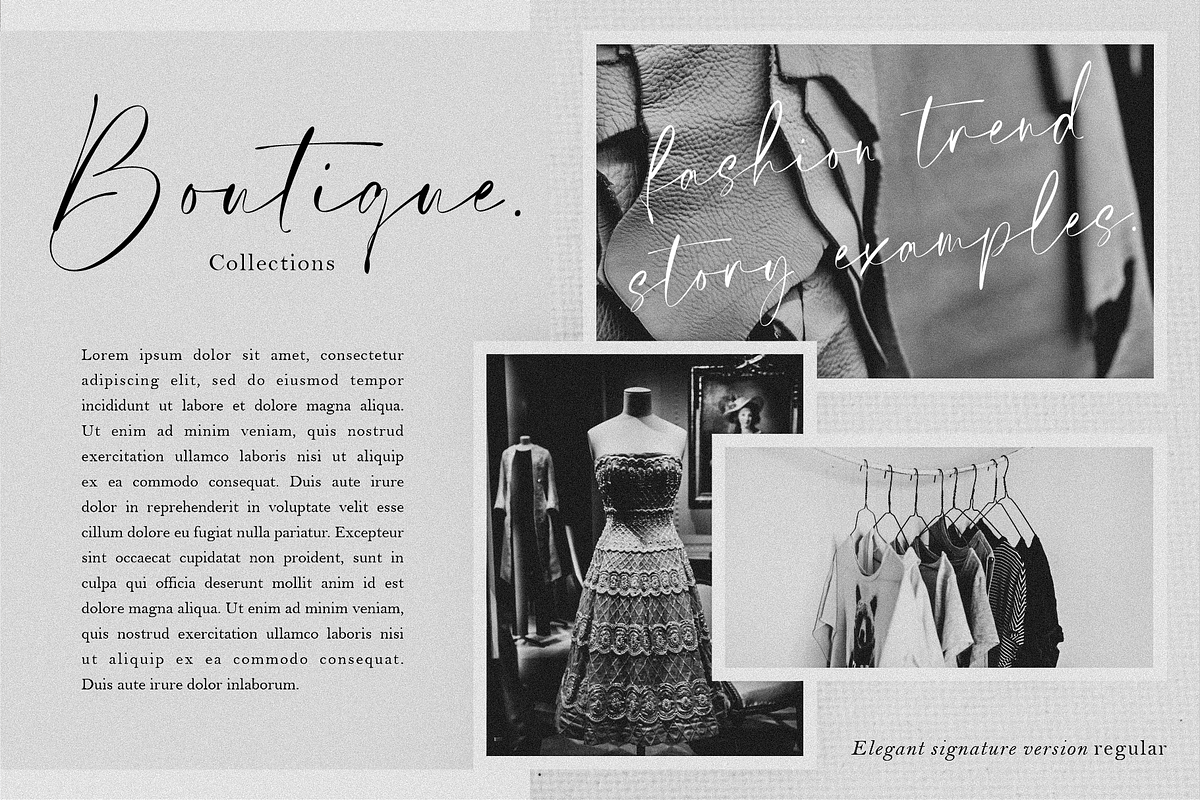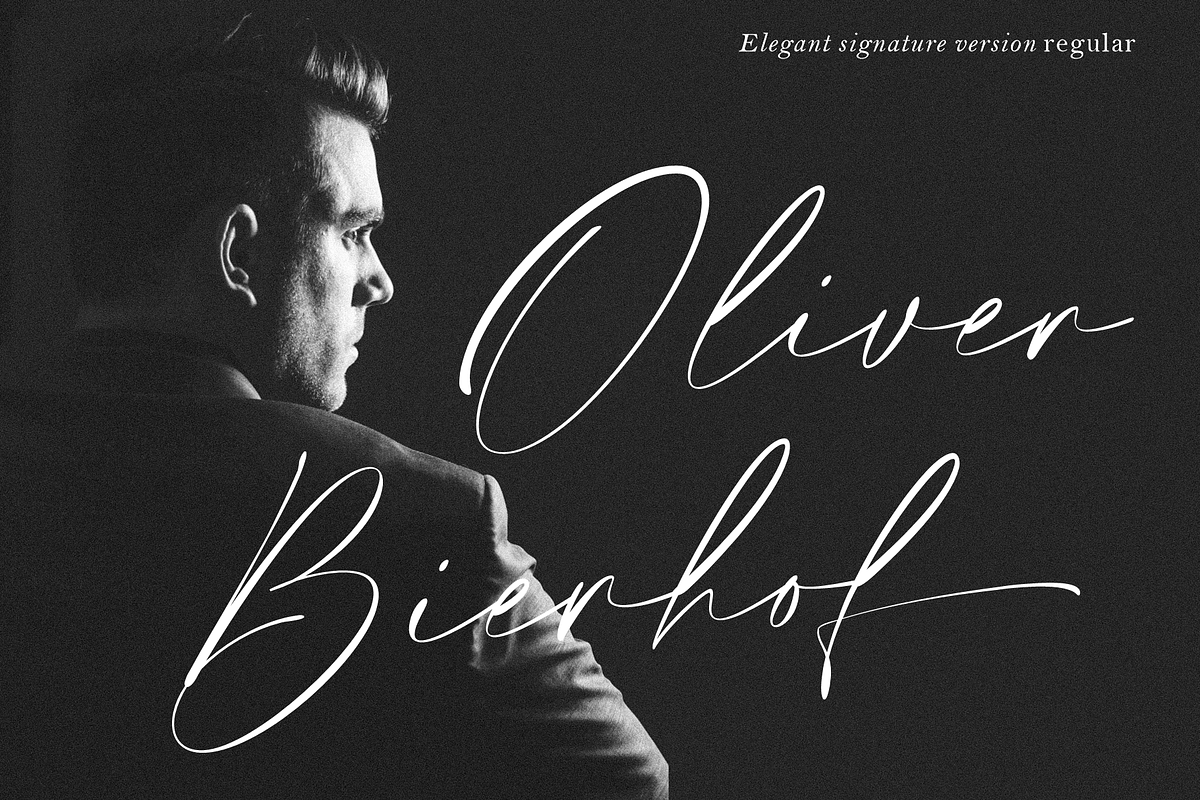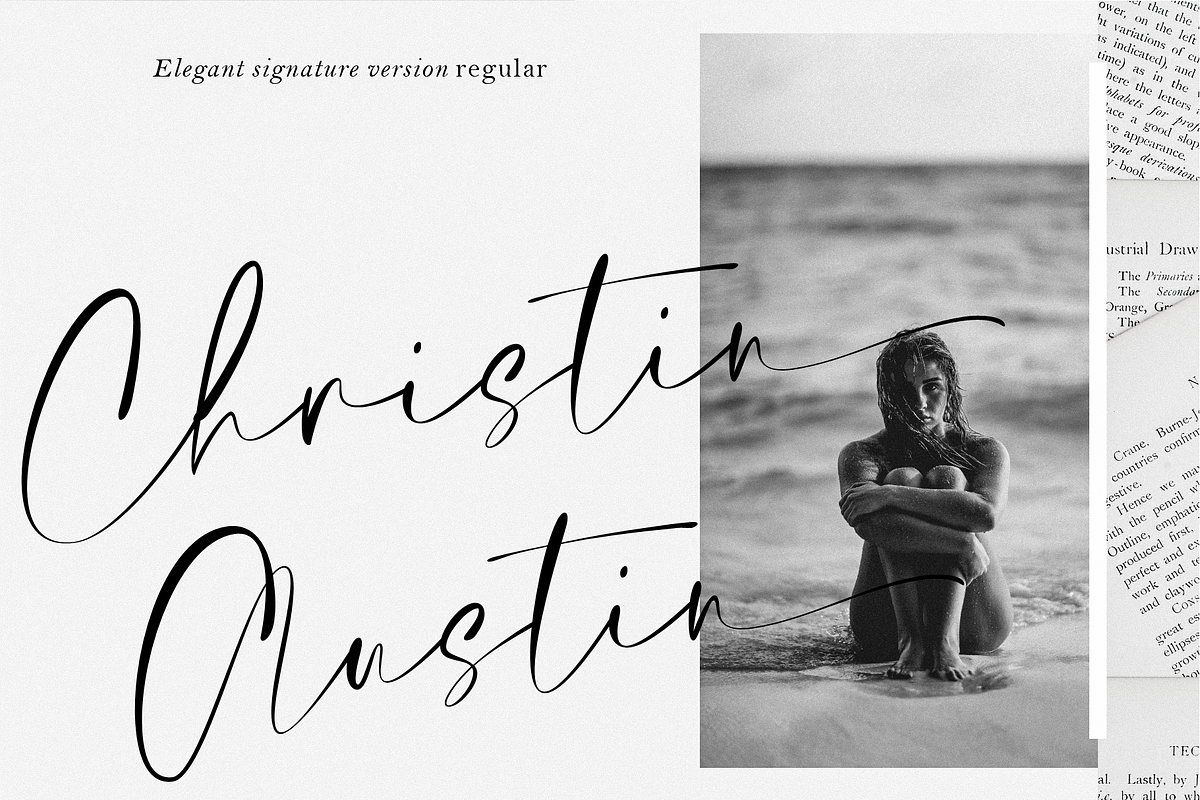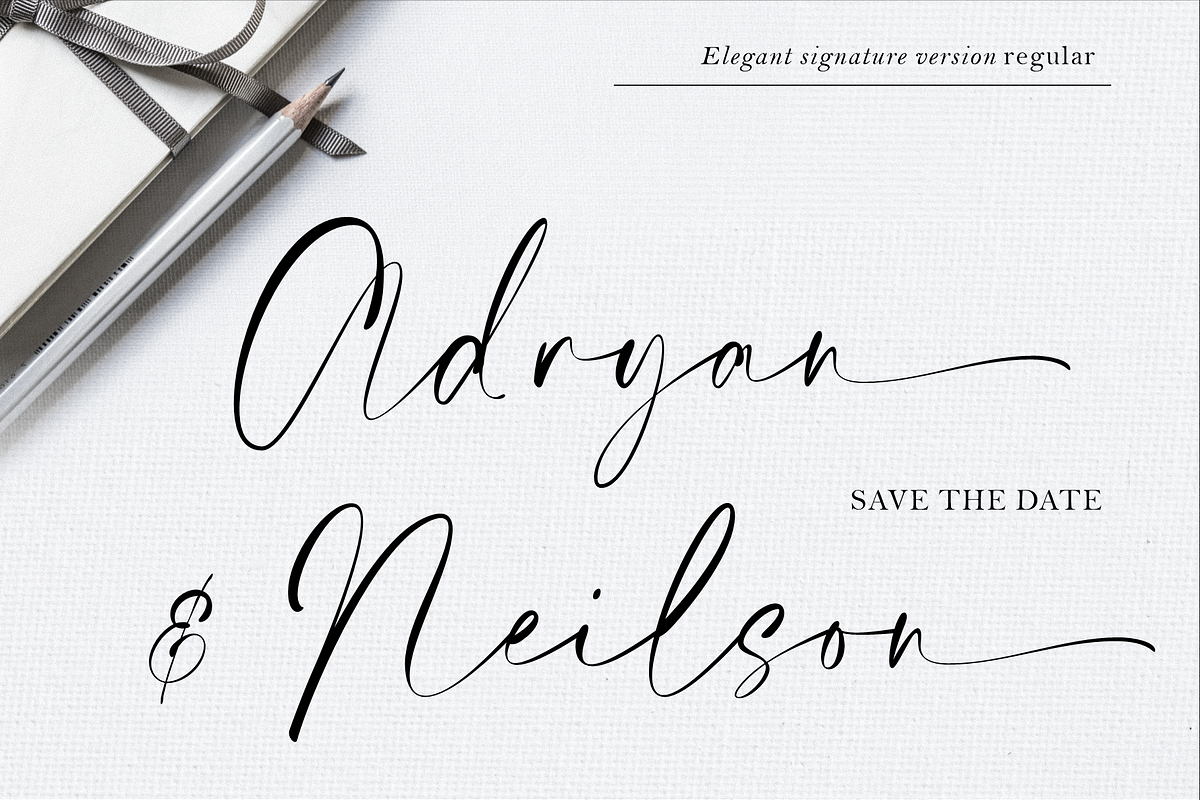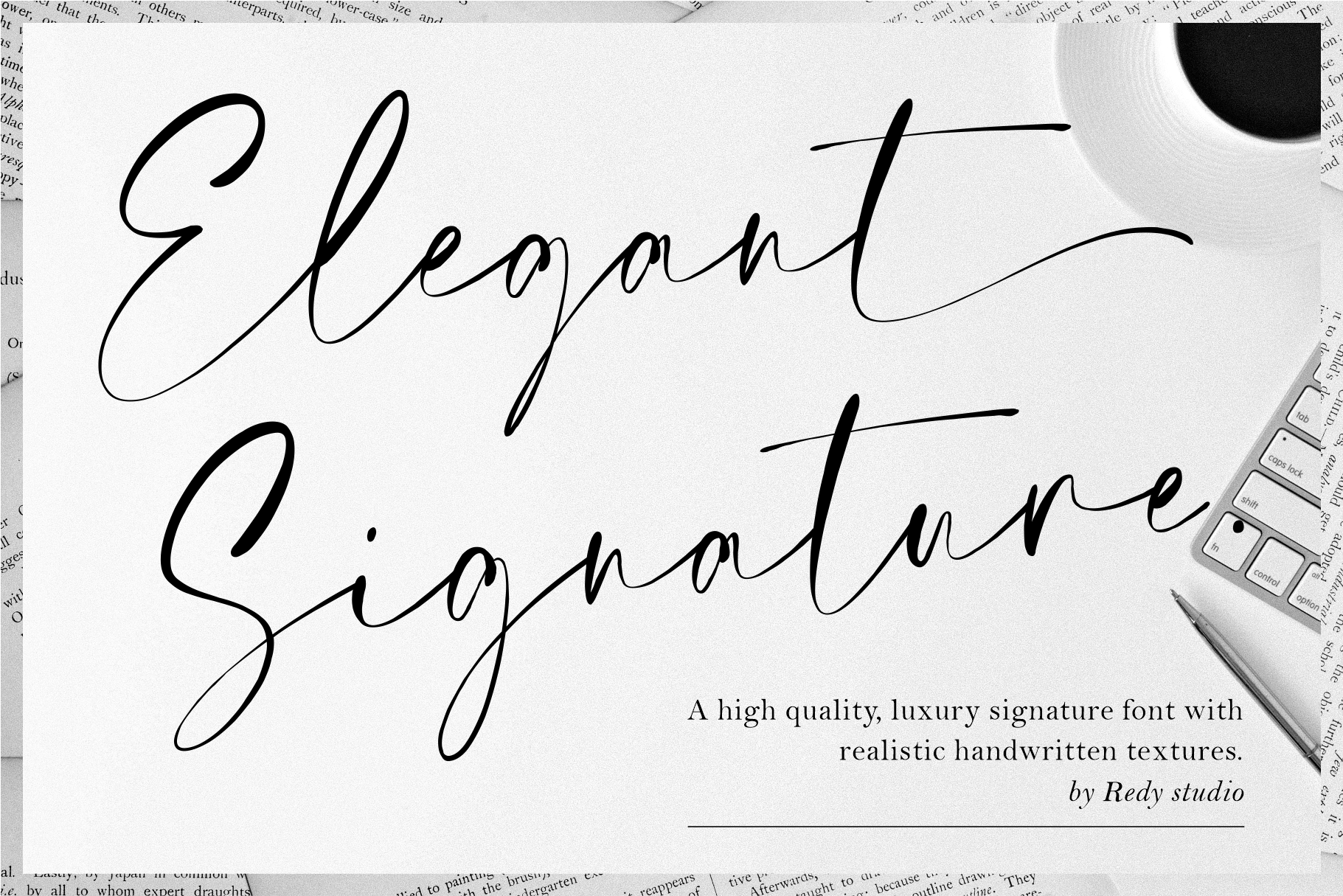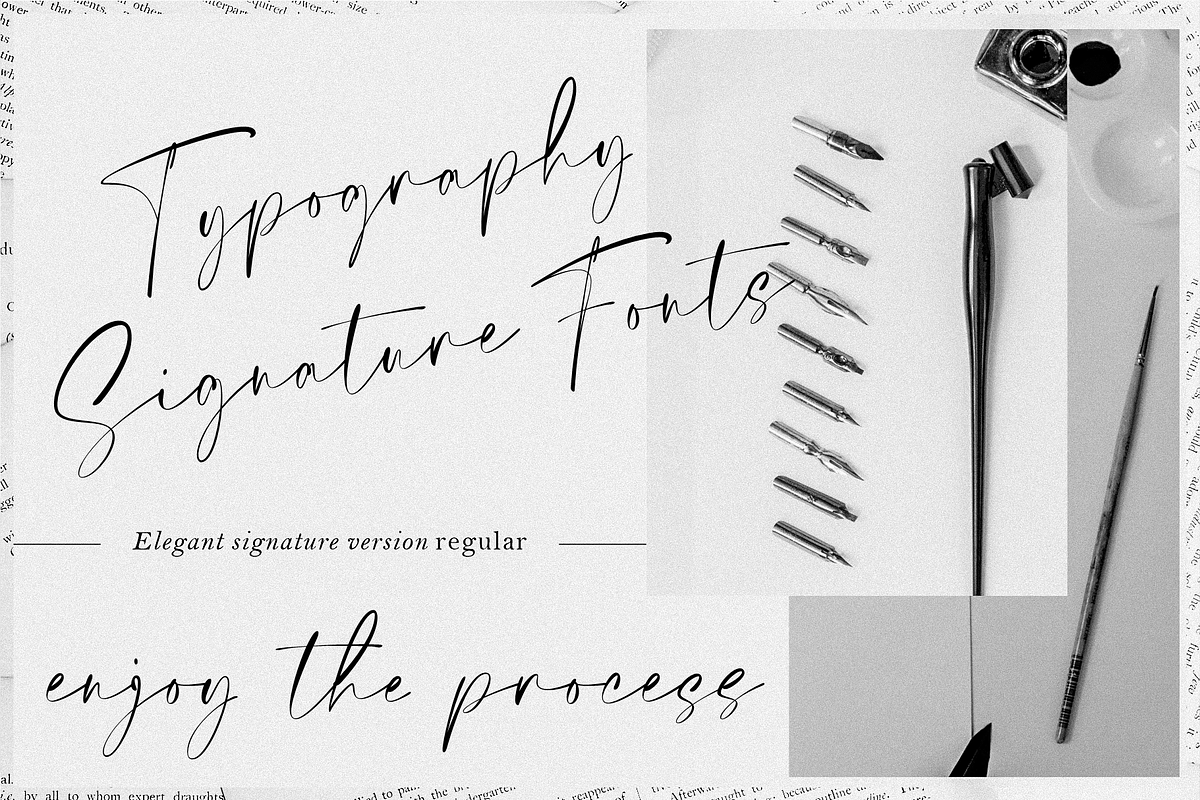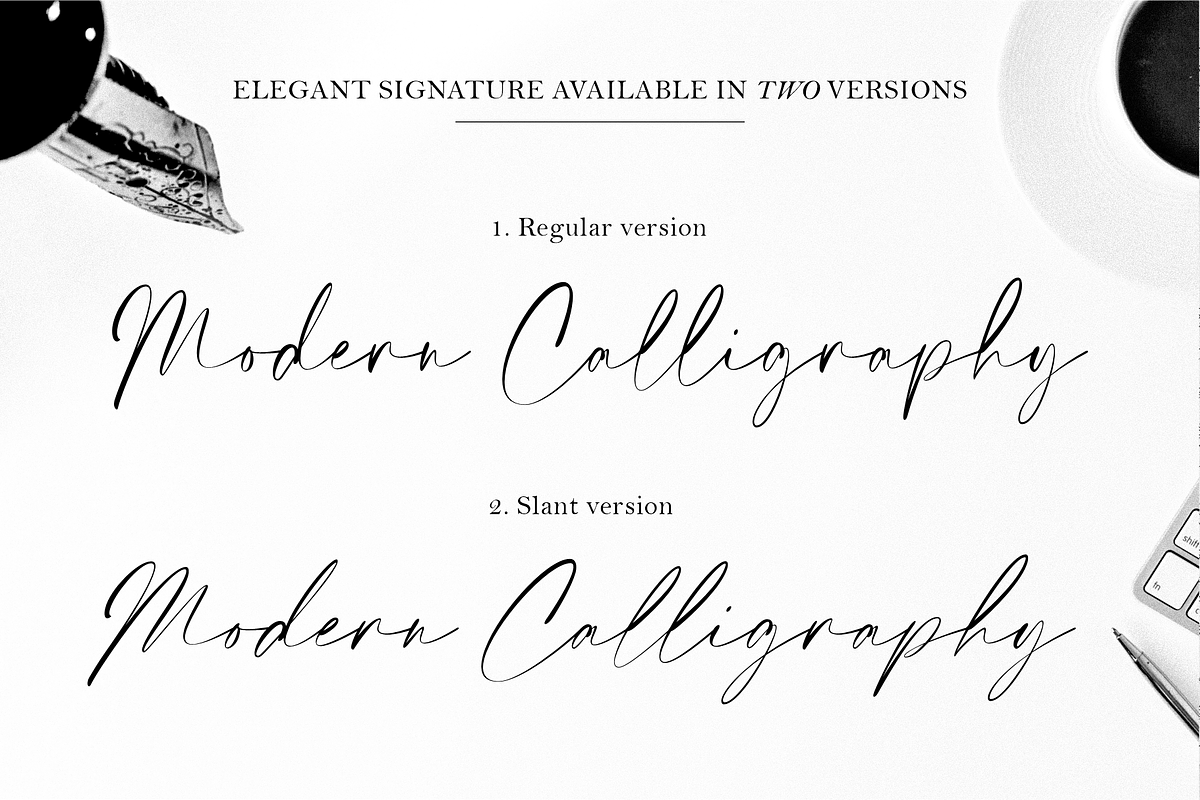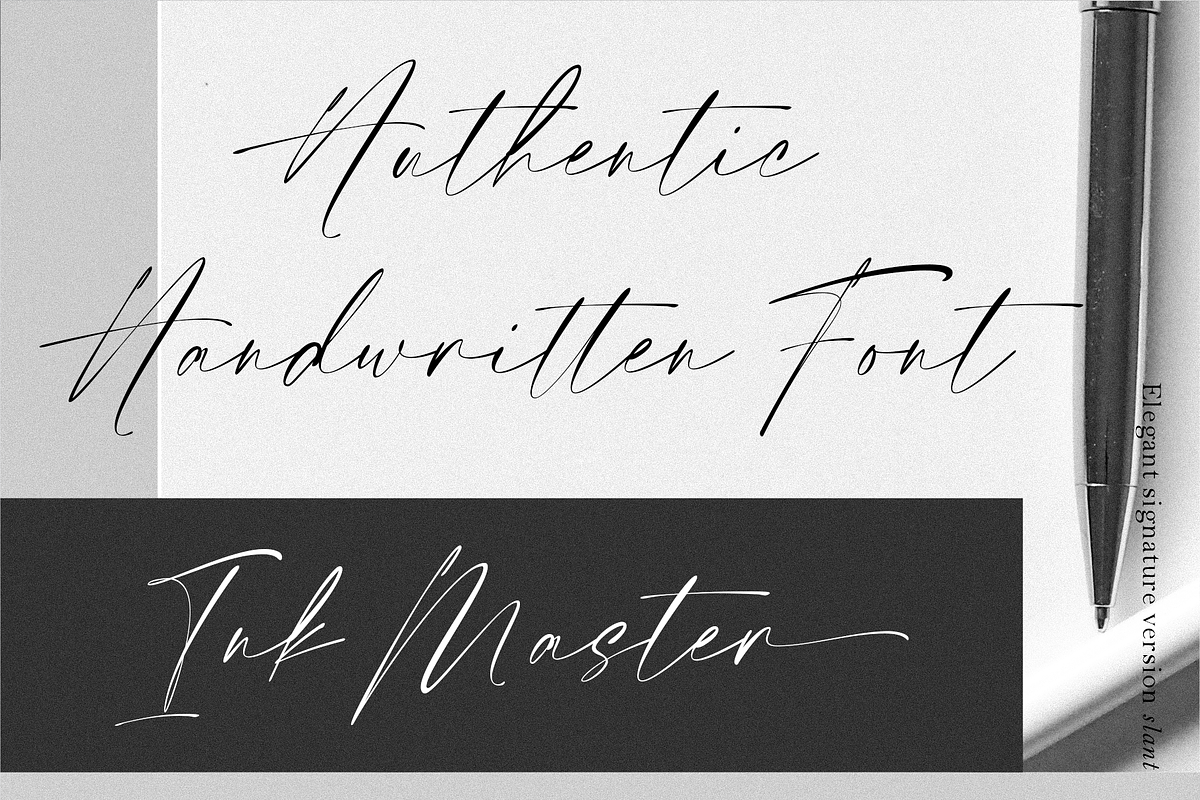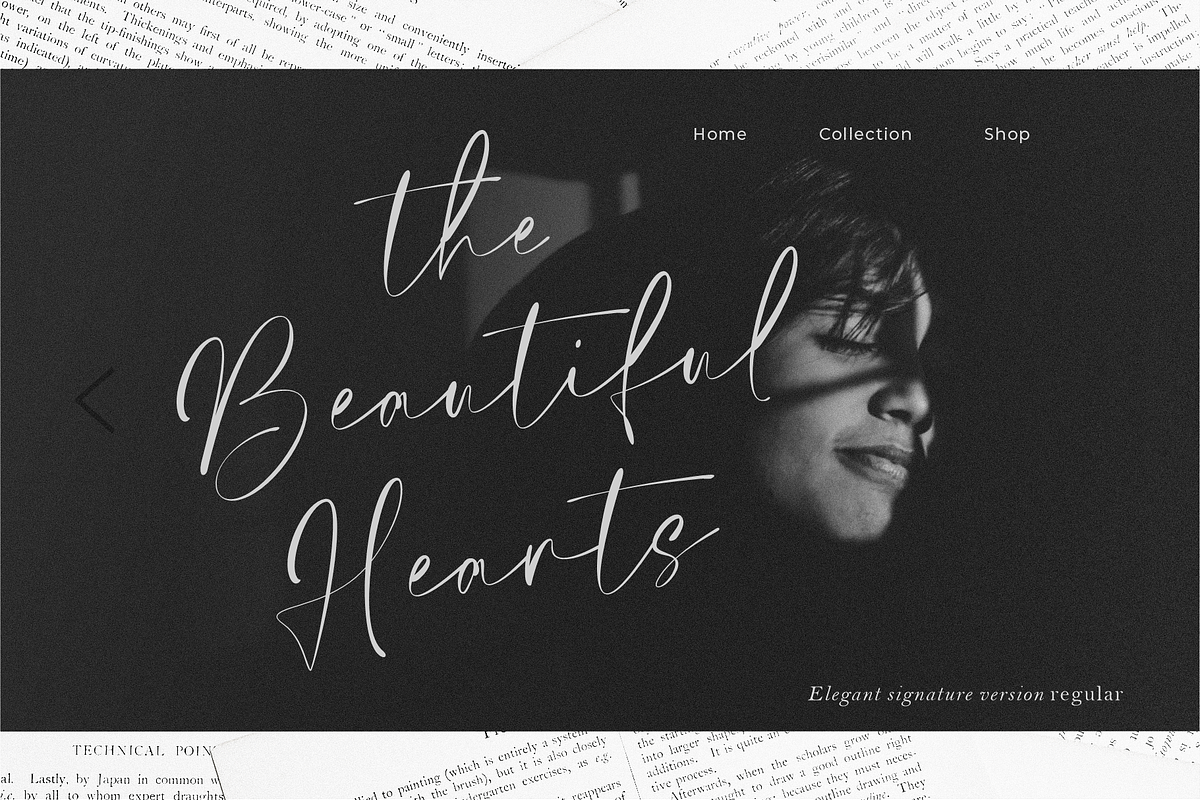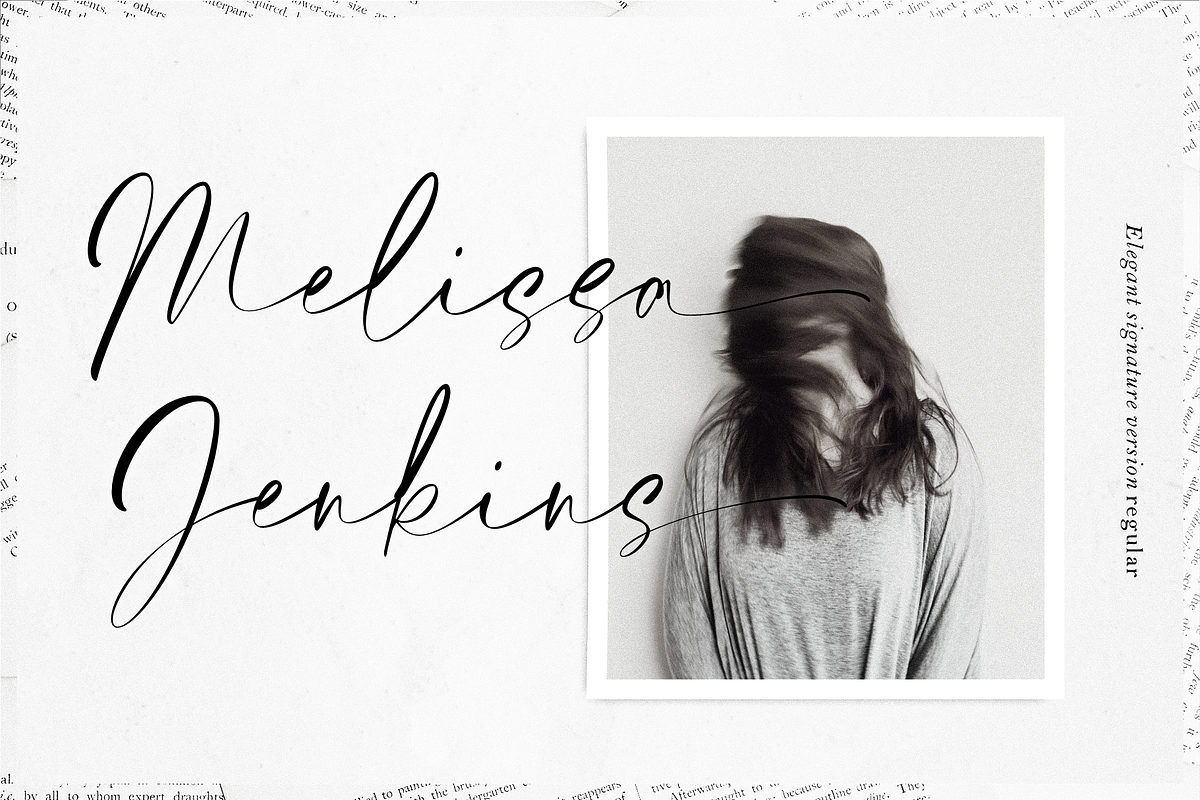
Elegant Signature – Casual Chic Font
Elegant Signature is a brand new font; very elegant, stylish, chic, and easy to read. It’s a beautiful handwriting style font with handmade clean edges, in very high quality that will certainly bring that special uniqueness needed in your designs. Create more eye-catching designs of your logo and add more art to your paperwork with this elegant signature font. It’s perfect for admiring lettering techniques, logotype, sticker label, magazine &, etc design. Enjoy the look of real handwriting and make your designs “pop” with this fresh and elegant font.
Elegant Signature features:
A full set of upper & lowercase characters Numbers & punctuation 65 Gorgeous ligatures A full set of alternate upper & lowercase characters Lowercase ending swashes Multilingual symbols PUA Encoded Characters – Fully accessible without additional design software.